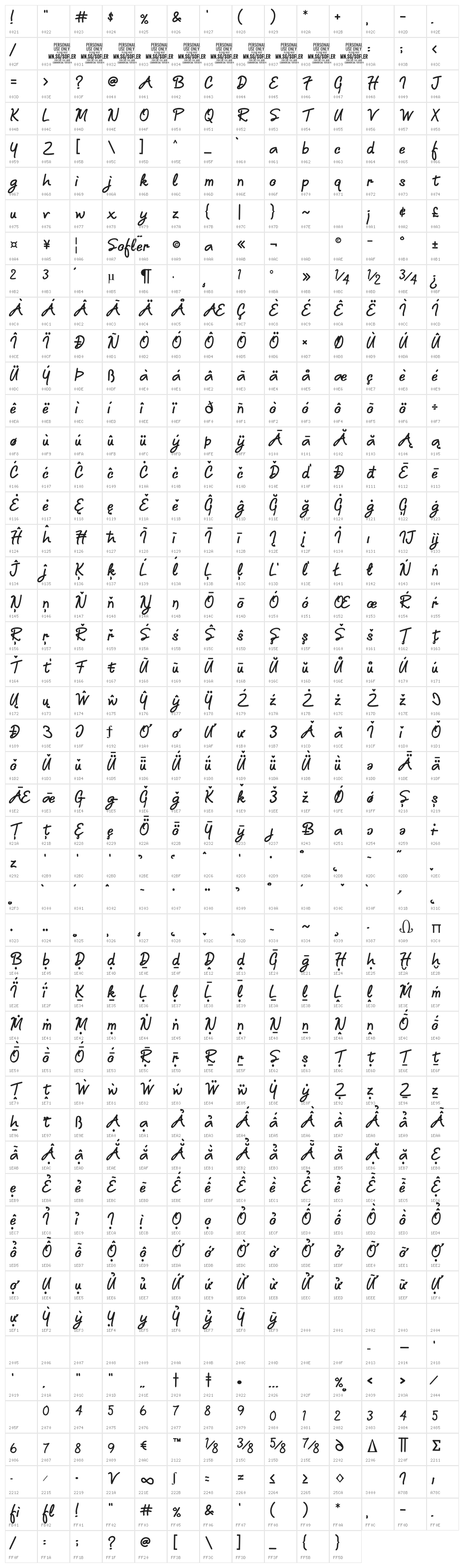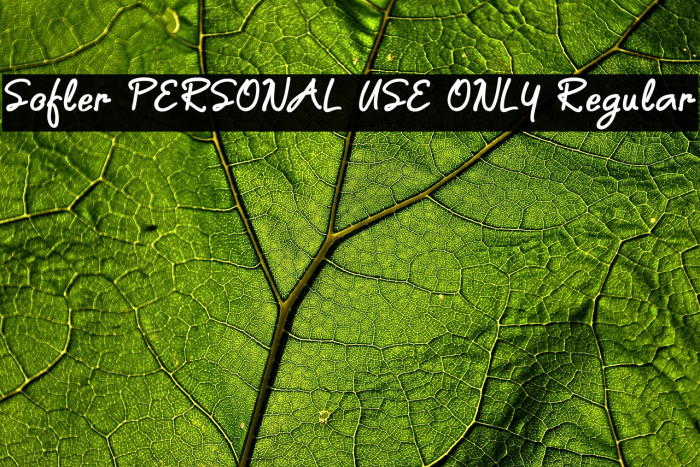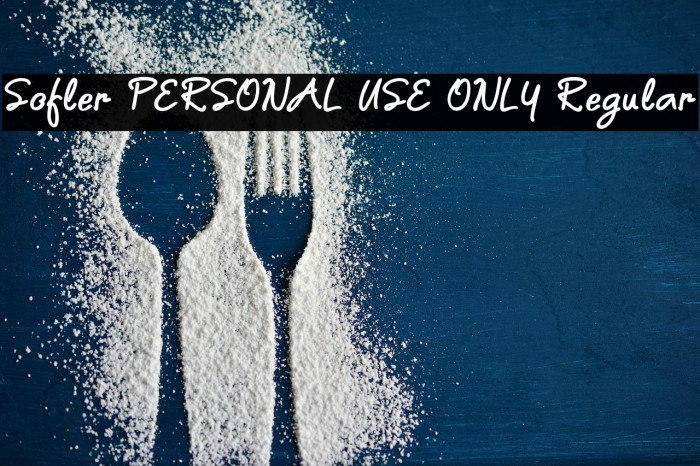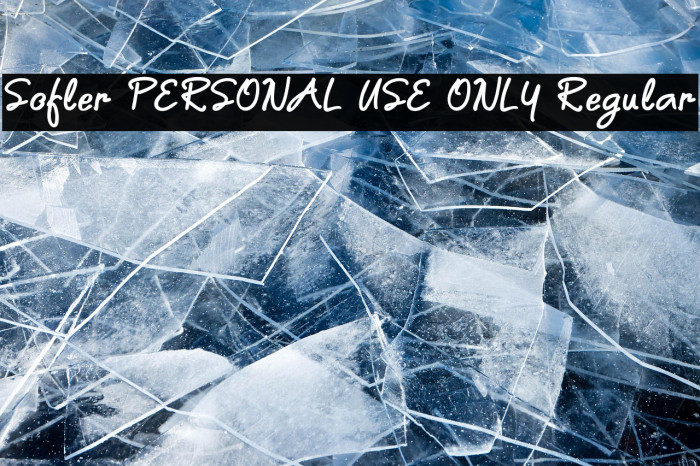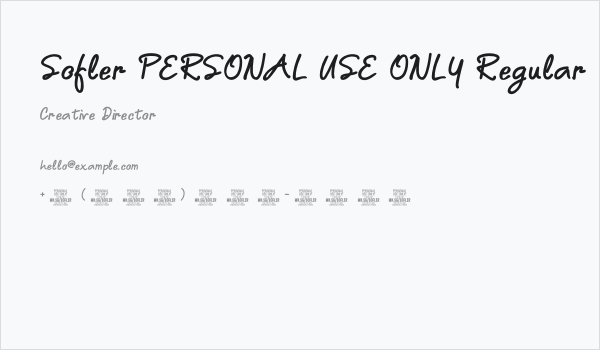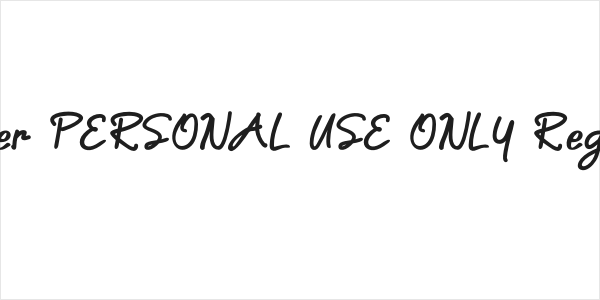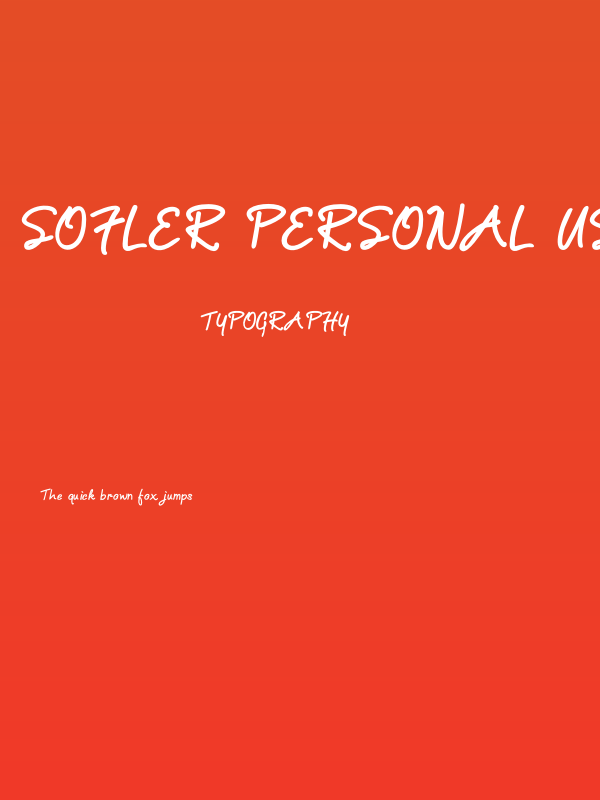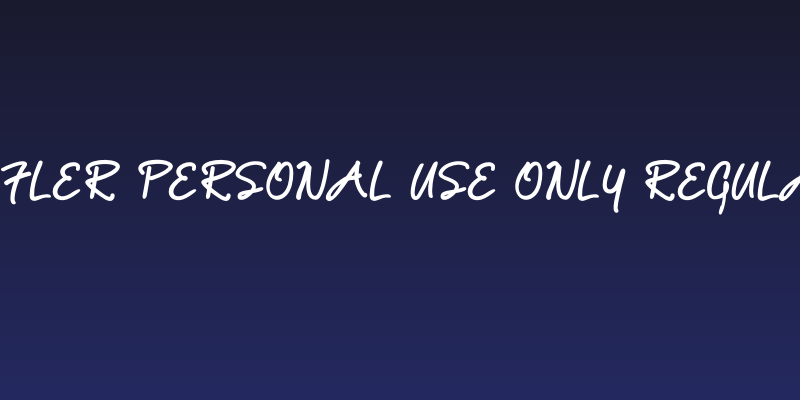
Sofler PERSONAL USE ONLY Regular Font
Sofler PERSONAL USE ONLY Regular Description
This font features a lively and dynamic script style, characterized by its flowing, cursive letterforms. The uppercase letters exhibit a graceful, sweeping motion with elegant curves, while the lowercase letters maintain a consistent rhythm and fluidity. The font's playful nature is further emphasized by its slightly irregular baseline, giving it a hand-drawn appearance. The characters are well-spaced, ensuring readability while preserving the font's artistic flair. Special characters and numerals are designed to match the overall aesthetic, making this font suitable for creative and expressive projects.